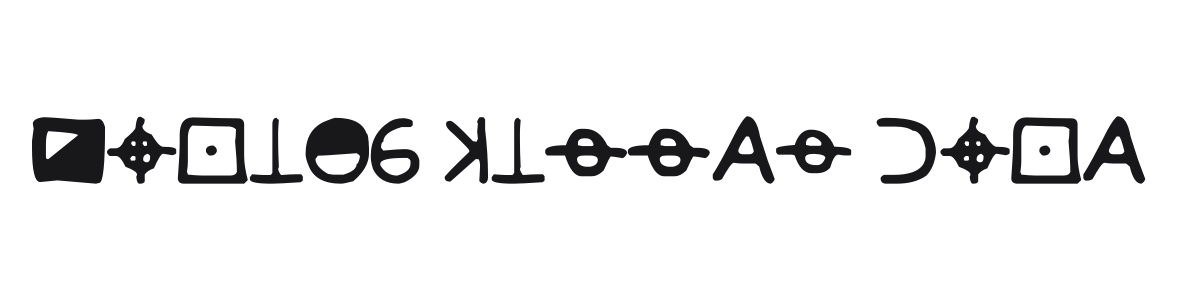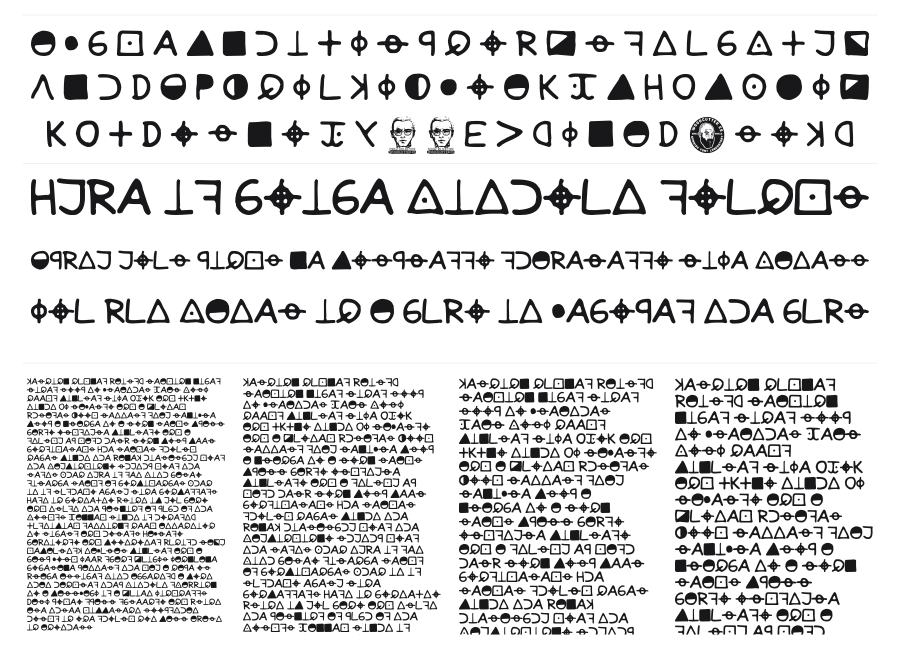
Zodiac Killer Code
Zodiac Killer Code is a symbol font by Woodcutter Manero that recreates the geometric cipher glyphs associated with the infamous Zodiac Killer's encoded messages. Characters are bold, monoweight shapes — arcs, triangles, squares, circles, crosshairs — each with a slightly rough, hand-drawn quality that keeps them from feeling sterile. A natural pick for true crime, horror, mystery, or thriller-themed design work.